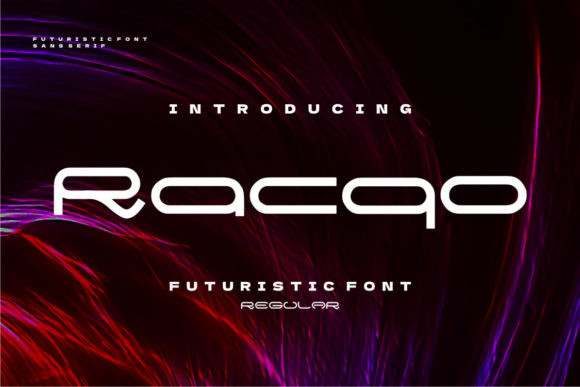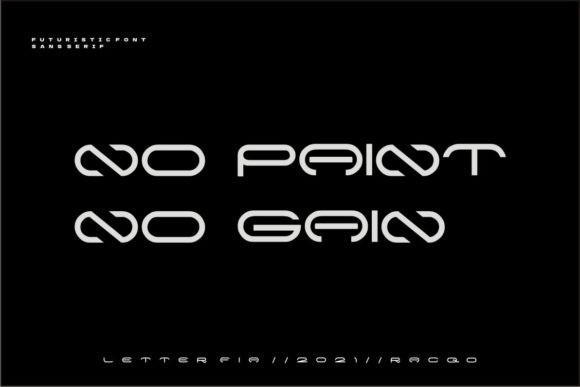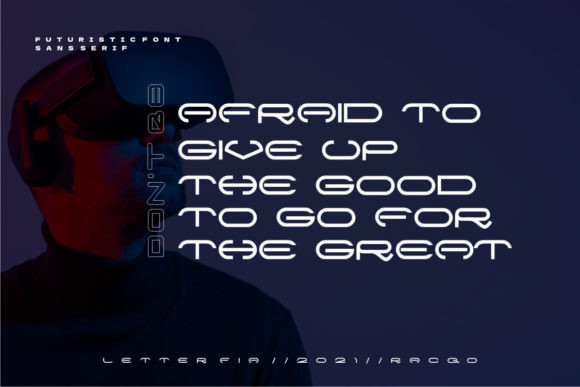
Racqo Font
Racqo is a cool and techno looking display font. This font is ideal for writing web designs, business cards, or pretty much anything else that requires a unique touch.